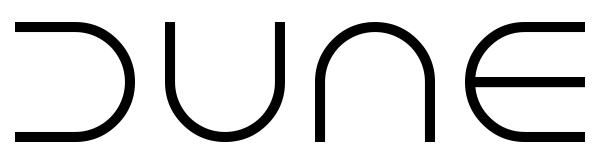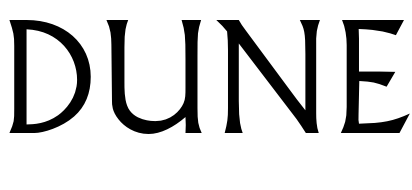
Dune Font
FantasyDune is a science fiction film directed by Denis Villeneuve, released in 2021. It is an adaptation of Frank Herbert's 1965 novel of the same name and tells the story of Paul Atreides, a young nobleman who must navigate the dangerous political landscape of a desert planet called Arrakis while also coming to grips with his own destiny.
The new Dune movie logo was custom made but has been recreated as Dune Rise by Jesta Designs. The font is free for commercial use.
The 1984 Dune movie title is likely written in Albertus Light font created by Berthold Wolpe, featuring a modified "U". This font is commercially available and additional information can be found about here.